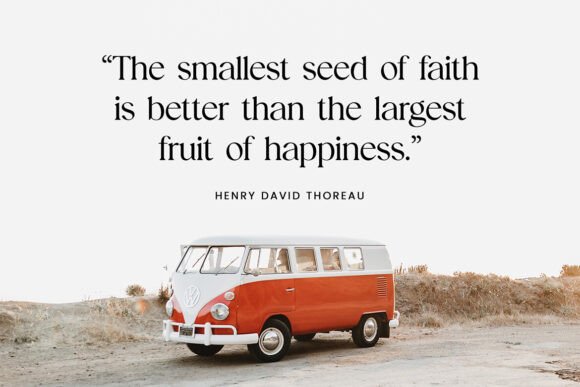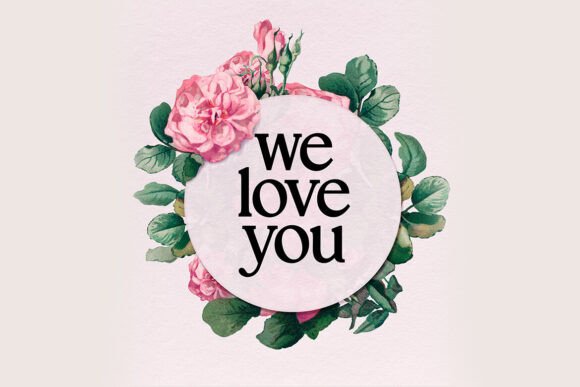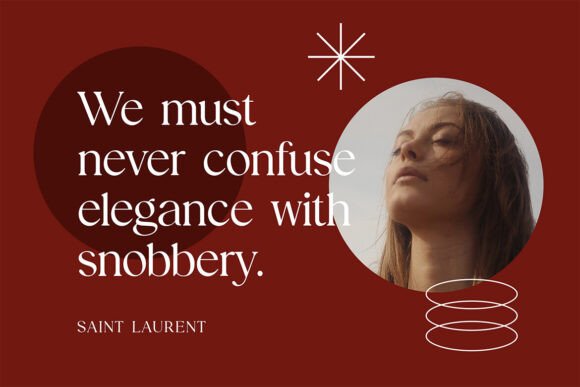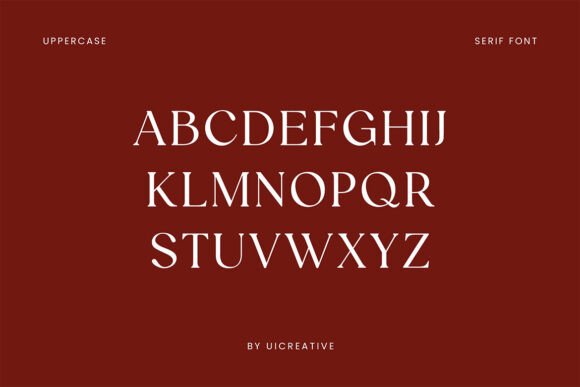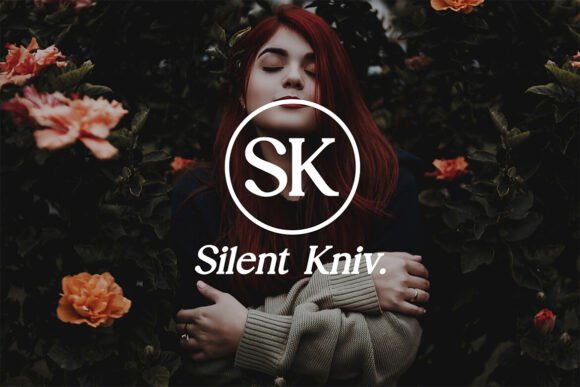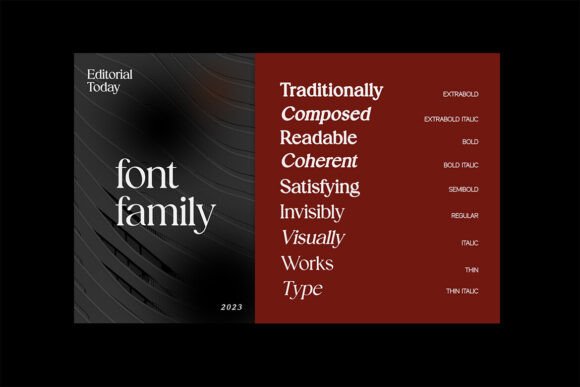
Introducing Editorial Font: Elevate Your Design with Elegance and Sophistication
In the world of typography, fonts play a crucial role in conveying the tone and personality of a brand or design. For those seeking a modern display font that exudes beauty, classiness, elegance, and style, look no further than the Editorial Serif Family Font. This versatile font is designed to cater to a wide range of projects, making it an ideal choice for designers and crafters alike.
Unparalleled Versatility
The Editorial Serif Family Font is a modern display font that boasts a unique blend of sophistication and style. Its elegant design makes it perfectly suited for a variety of applications, including:
- Signature and stationery designs
- Logo creation
- Wedding and event typography
- Typography quotes and posters
- Magazine and book covers
- Website headers and branding
- Fashion-related branding and editorial design
Whether you’re working on a luxury brand, a fashion magazine, or a wedding invitation, this font is sure to elevate your design and leave a lasting impression.
Masculine and Feminine Qualities
One of the standout features of the Editorial Serif Family Font is its ability to display both masculine and feminine qualities. This makes it an excellent choice for fashion-related branding and editorial design, where the tone and personality of the brand are crucial. The font’s elegant and sophisticated design ensures that it can adapt to a wide range of styles and themes, making it a versatile addition to any designer’s toolkit.
Why Choose Editorial Serif Family Font?
So, what sets the Editorial Serif Family Font apart from other fonts? Here are just a few reasons why designers and crafters are falling in love with this modern display font:
- Elegant and sophisticated design: The Editorial Serif Family Font boasts a unique and stylish design that is sure to elevate any project.
- Versatility: With its wide range of applications, this font is perfect for designers and crafters who need a font that can adapt to different styles and themes.
- Masculine and feminine qualities: This font’s ability to display both masculine and feminine qualities makes it an excellent choice for fashion-related branding and editorial design.
- High-quality design: The Editorial Serif Family Font is designed with precision and attention to detail, ensuring that it looks stunning in any application.
Tips for Using Editorial Serif Family Font
To get the most out of the Editorial Serif Family Font, here are a few tips to keep in mind:
- Pair with complementary fonts: Experiment with pairing the Editorial Serif Family Font with other fonts to create a unique and visually appealing typography combination.
- Use for headlines and titles: The Editorial Serif Family Font is perfect for headlines and titles, where its elegant and sophisticated design can shine.
- Experiment with different colors and textures: Don’t be afraid to experiment with different colors and textures to add depth and interest to your design.
In conclusion, the Editorial Serif Family Font is a modern display font that offers elegance, sophistication, and versatility. With its wide range of applications and ability to display both masculine and feminine qualities, this font is perfect for designers and crafters seeking to elevate their design and create a lasting impression. Whether you’re working on a luxury brand, a fashion magazine, or a wedding invitation, the Editorial Serif Family Font is sure to become a valuable addition to your design toolkit.